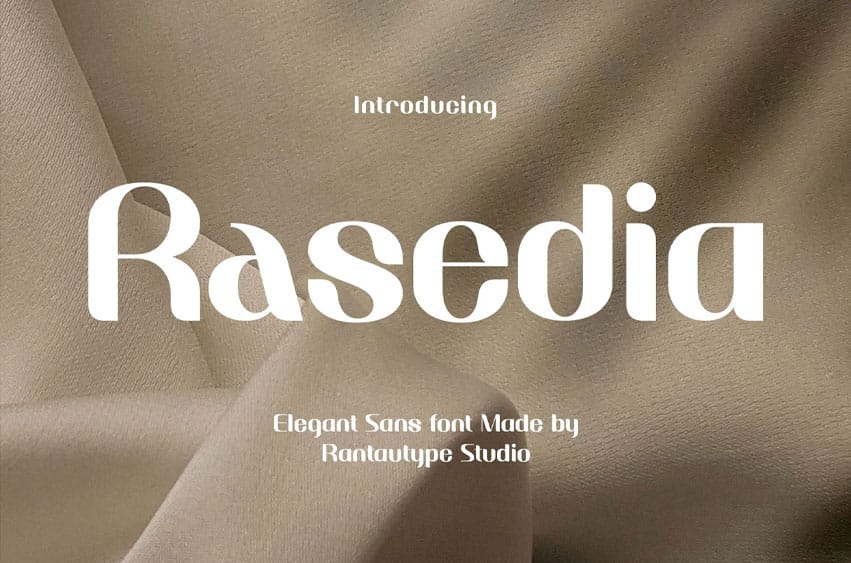
Rasedia Font is an Elegant Sans font with well-balanced contemporary features to make your design project stand out! Rasedia is a perfect choice for any creative endeavor, chic lifestyle design such as logotype, advertisements, watermark on photography, stationery, branding project, display and magazine, invitation, corporate brand, product design, label, business project, and many other projects with an elegant touch.